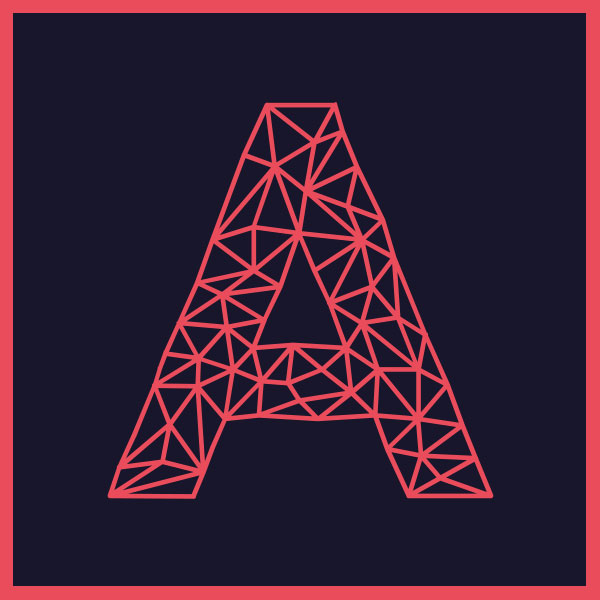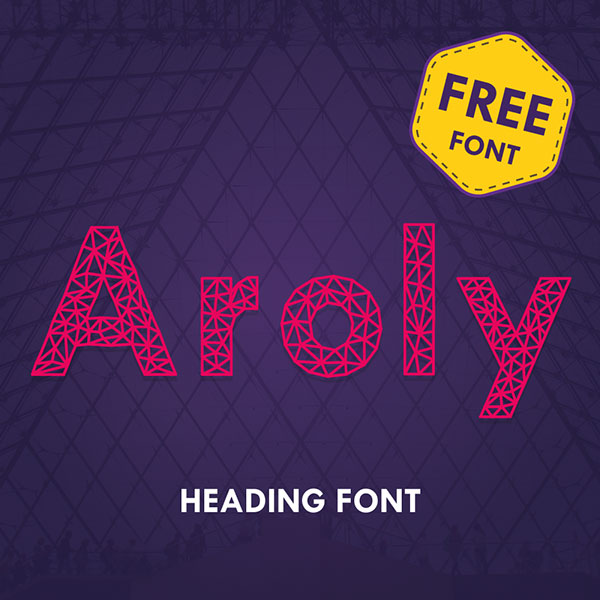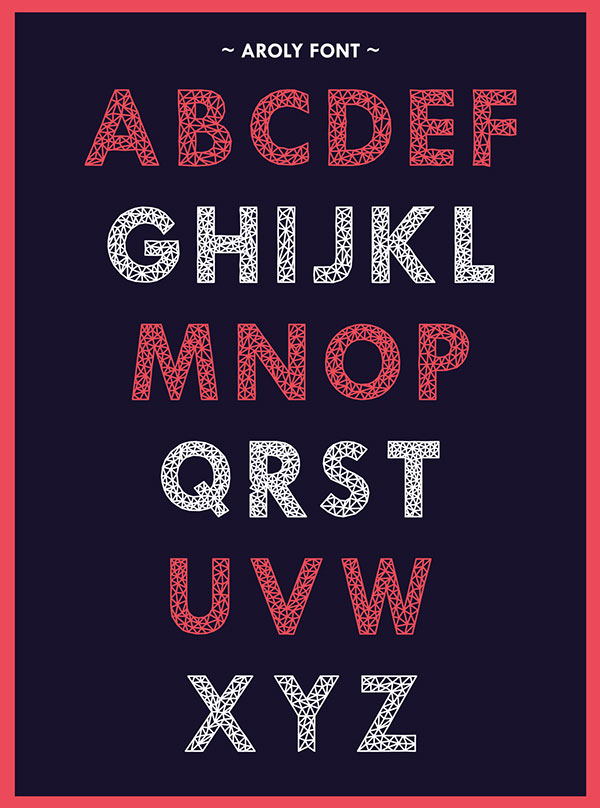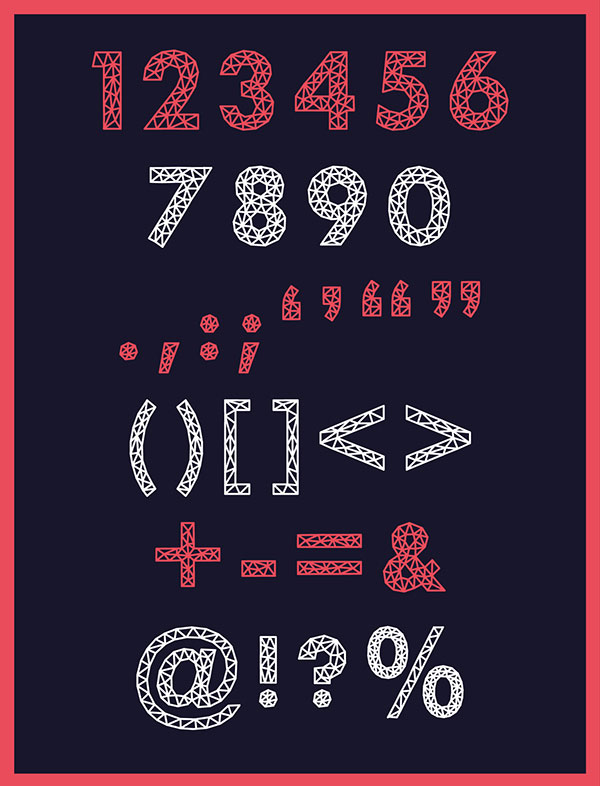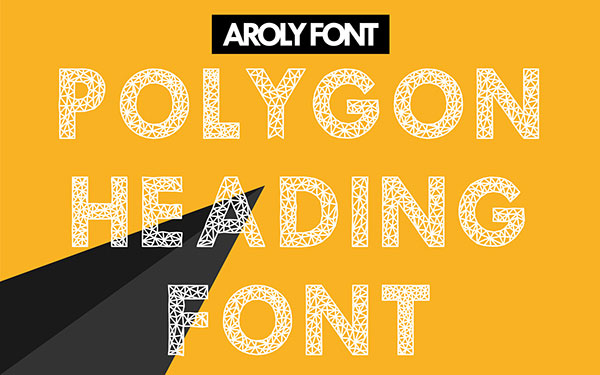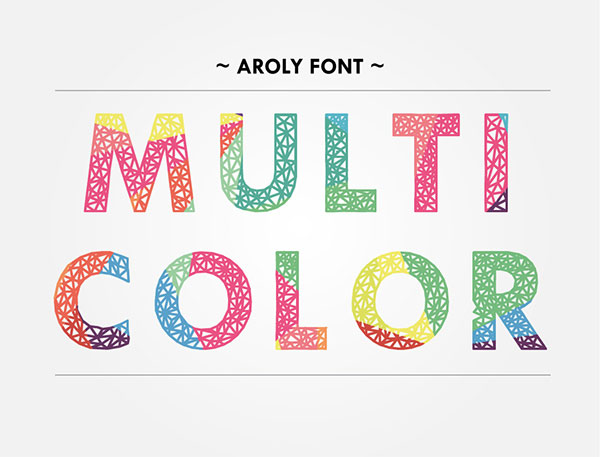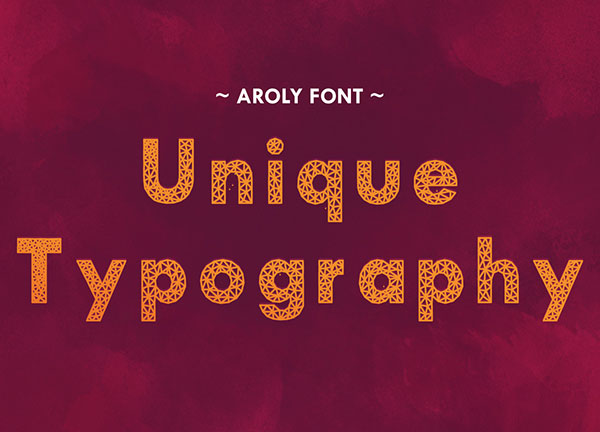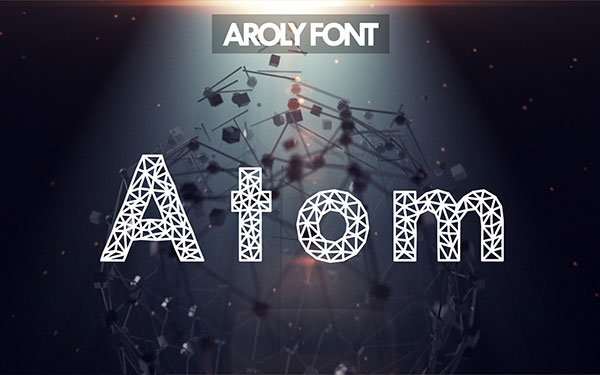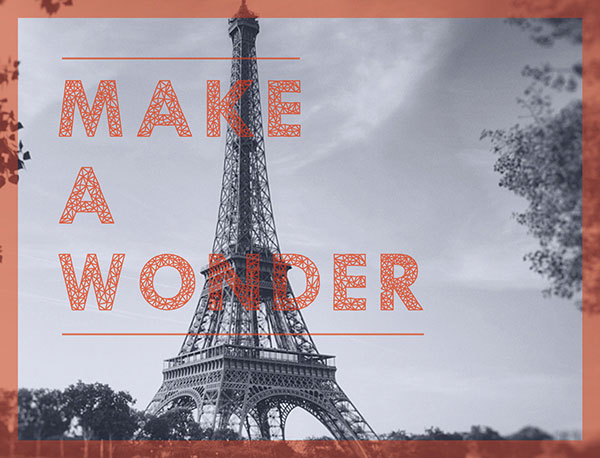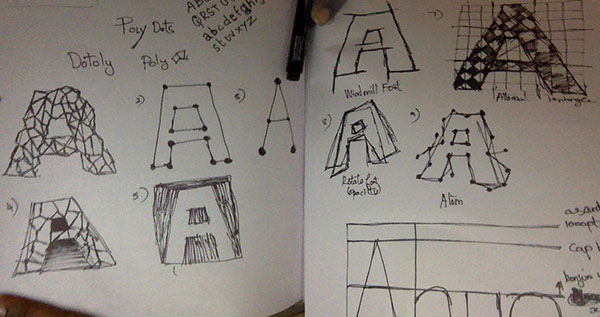
Aroly Font
Aroly is a polygonal heading font, designed by Arvind Kumar. The character set includes the full 26 Capital and small letters, numbers, punctuation marks and more.